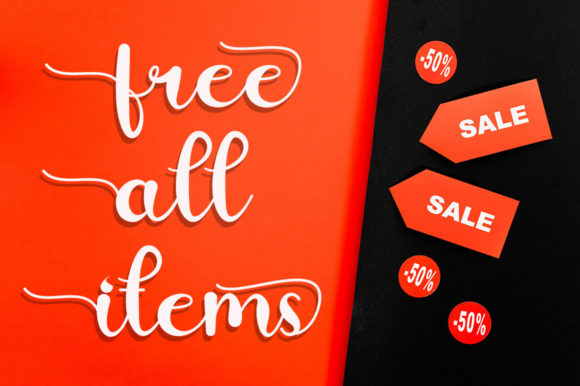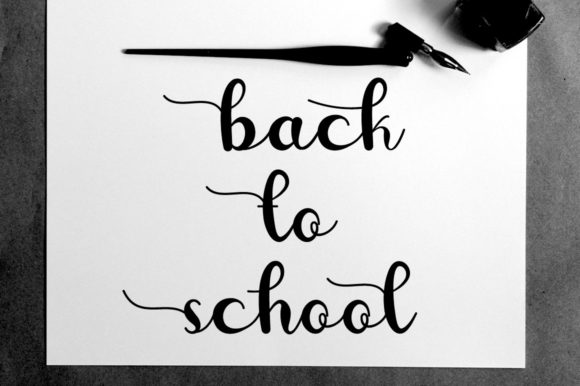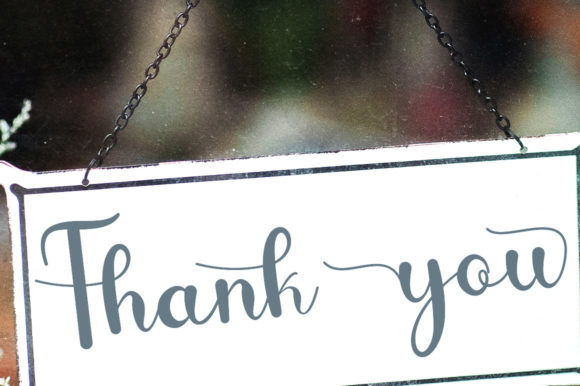
The Perfect Touch for Your Next Design Project
Do you ever find yourself sitting in front of your computer, staring at a blank canvas, waiting for inspiration to strike? For many of us, the perfect font can be just the spark we need to get our creative juices flowing. And that’s exactly what we’ll be exploring today – the Baby Shop Font, a beautiful handwritten font that’s sure to add a touch of elegance to any design project.
Baby Shop Font is a masterfully designed font that combines the classic charm of calligraphy with a modern, fresh feel. Whether you’re working on a wedding invitation, a baby shower design, or a promotional poster, this font is sure to elevate your work and make it stand out from the crowd. And with its PUA encoding, you’ll have access to all the glyphs and swashes you need to create truly unique designs.
Baby Shop Font Key Features
- Font Family: Baby Shop Font is a custom-designed font family with a unique, playful style, ideal for baby-related products and services.
- Unique Characteristics: The font features rounded edges, soft curves, and a gentle feel, evoking a sense of warmth and approachability, perfect for baby-related branding.
Baby Shop Font Review
Overall, I think the Baby Shop Font is a cute and playful choice for any nursery or kids’ themed project. It’s definitely got a certain charm to it ✨. The rounded edges and soft lines make it feel approachable and friendly, which is perfect for a font that’s designed for kids.
- It’s extremely readable, even at smaller font sizes ✨. This makes it a great choice for body text or headings.
- The font has a wide range of weights and styles, including bold, italic, and condensed options ✨. This gives you a lot of flexibility when designing with the font.
- The font is highly customizable, with support for ligatures, ornaments, and other special characters ✨.
- The font may be a bit too playful for more formal or professional projects ⚠️. It’s definitely better suited for a children’s book or nursery decor than a business report.
- The font can be a bit too large and bold for smaller text ⚠️. You may need to adjust the font size or weight to make it more readable.
Overall, I think the Baby Shop Font is a great choice for any project that needs a playful and friendly font. Just be aware of its limitations and use it accordingly.
Tips for Getting the Most Out of Baby Shop Font
Use the Baby Shop Font to create a playful and child-friendly atmosphere in your designs. Experiment with different font sizes and styles to add visual interest. You can also use the font in combination with other playful elements, such as illustrations and graphics.
The Baby Shop Font is perfect for:
- Children’s product packaging and labeling.
- Toy and baby store branding and marketing materials.
Playfair Display is an elegant serif font that is perfect for use in luxury branding, advertising, and editorial design. It has a more sophisticated and refined feel compared to Baby Shop Font, which is more playful and youthful. Playfair Display is ideal for designers who want to create a sense of luxury and high-end quality.
Can I customize the Baby Shop Font for my specific design needs?
Yes, the Baby Shop Font is a highly customizable font. You can adjust font sizes, colors, and styles using your design application’s built-in tools. Additionally, the font includes a wide range of OpenType features, such as ligatures, swashes, and ornaments, which can be accessed using your design application’s font menu.